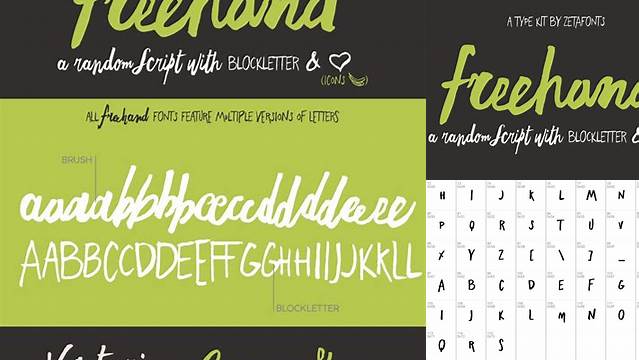
Freehand Blockletter Bold Font: Download & Design Guide
Welcome, design enthusiasts! Today, we're diving headfirst into the world of typography with the Freehand Blockletter Bold font. This is the ultimate guide to everything you need to know about downloading and using this awesome font. We'll explore its features, where to find it, and how to unleash its creative potential in your projects. Let's get started!
Freehand Blockletter Bold Font: A Detailed Overview
Let's delve a bit deeper into the Freehand Blockletter Bold font itself. This isn't just any font; it's a statement. Its bold, blocky appearance makes it perfect for headlines, titles, and any design element that needs to grab attention. The hand-drawn feel adds a touch of personality and warmth that can be hard to find in other, more rigid fonts. This font style is a great choice for projects where you want to convey a sense of creativity and approachability. It works well in various design contexts, from posters and flyers to website headers and social media graphics. The bold weight ensures high readability, even at smaller sizes, making it a practical choice for various applications. The font's versatility is another key feature. It can be paired with a wide range of other fonts, allowing you to create interesting and dynamic visual compositions. You can combine Freehand Blockletter Bold with a clean, sans-serif font for body text to create a striking contrast, or you can pair it with a more elaborate script font for a touch of elegance. The possibilities are endless. The hand-drawn style of the font also lends itself well to a variety of creative effects. You can experiment with different colors, textures, and outlines to enhance its visual impact. Consider using drop shadows, glows, or gradients to add depth and dimension to your text. These effects can make your designs even more eye-catching and engaging. Before you start using Freehand Blockletter Bold, it's a good idea to familiarize yourself with its character set. While it might not include every character imaginable, it should have all the essential letters, numbers, and punctuation marks you'll need for most projects. Check the font's glyphs to see if it includes any special characters or alternate letterforms that might enhance your designs. Understanding these details will help you get the most out of the font. The boldness of Freehand Blockletter Bold also means it can be used effectively in various sizes. Whether it's a huge headline on a banner or a smaller title on a business card, it will retain its impact. Play around with different sizes to see what works best for your specific needs. Always remember that the best design is one that effectively communicates its message. With its strong visual presence, Freehand Blockletter Bold helps you achieve this by instantly capturing your audience's attention.
Using Freehand Blockletter Bold: Design Ideas and Best Practices
Now that you've got the Freehand Blockletter Bold font, let's talk about how to use it like a pro. This font is a real powerhouse, and it can add a unique flair to a variety of design projects. One of the best uses for this font is in headlines and titles. Its boldness and distinctive style instantly grab the reader's attention. Think about using it for posters, flyers, website headers, and social media graphics. It is also fantastic for logos, especially for businesses that want to project a fun, creative, or handmade image. The font's character adds personality and memorability. This is also great for creating eye-catching quotes or short bursts of text within your designs. Use it to emphasize a key message or add a visual highlight. Be mindful of using it for large blocks of text, as the bold style may make it less readable in long-form content. In general, keep the font usage strategic and focused on impact. You can combine Freehand Blockletter Bold with other fonts to create dynamic typographic compositions. Try pairing it with a clean, sans-serif font for body text to create a visual contrast. Or combine it with a more flowing script font for an elegant look. Think about how the different font styles complement each other and contribute to the overall design. You can also experiment with the colors and styles of the font. Consider using bold colors to make your text stand out, or apply gradients, drop shadows, or outlines to create visual effects. Adding textures can also enhance the style of the font, making it even more appealing. When using the font, think about the context of your design. Is it a fun, playful design or a more serious one? The personality of the font can match the tone of your overall project. Consider the target audience and what style of text will appeal to them. Always ensure that the font is readable. While Freehand Blockletter Bold is visually striking, readability is key. Make sure the font size is appropriate for the context, and leave enough space between the letters and lines to maintain legibility. Keep in mind the overall balance of your design. Don't let the font overpower other design elements. The font should complement the visual elements and contribute to the overall message. With a little creativity and careful planning, the font can become a powerful tool in your design toolkit.
Freehand Blockletter Bold in Graphic Design: Creative Applications
Let's get creative with how you can apply Freehand Blockletter Bold in various graphic design projects. This font is like a versatile artist's tool, perfect for a variety of creative applications. First, think about branding. The font is an excellent choice for creating logos that need to stand out. Its bold and unique style makes it memorable. When designing a logo with this font, you can also experiment with its visual impact. Consider different color combinations, layouts, and placements to see what best represents the brand's identity. This font is a fantastic choice for poster design. Its bold presence makes headlines pop, making them highly visible. Use it to create posters for events, promotions, or announcements. You can experiment with different sizes and styles to create an attractive look. This font also shines in social media graphics. It's perfect for creating engaging and eye-catching content on platforms like Instagram, Facebook, and Twitter. Use the font to create quotes, announcements, and promotional materials that will capture the audience's attention. This is also great for creating website headers and banners. Its bold style ensures that the website's name or main message is immediately noticeable. Make sure to consider the overall aesthetic of the website when using this font. The font can enhance the appearance of various printed materials, such as brochures, flyers, and business cards. Its unique style adds a creative element that makes your design stand out. The font is also excellent for creating custom illustrations and artwork. Use the font to create typography-based art or integrate it with hand-drawn elements for a unique effect. With a little creativity, you can use the font in various other design projects. Think about album covers, book covers, and even product packaging. Its versatility makes it an excellent choice for a range of applications. It can also be creatively combined with other design elements to enhance visual appeal. Remember to always consider the context of your design and use the font in a way that complements the overall message. Freehand Blockletter Bold offers a world of possibilities; your imagination is the only limit.
Freehand Blockletter Bold Font: Customization and Styling Techniques
Let's dive into some awesome techniques to customize and style your Freehand Blockletter Bold font, making it uniquely yours. This font is not just about the basic characters; you can modify and adjust it to create truly unique and appealing designs. First, you can experiment with color. While black and white are classic choices, try using bold, bright colors to make your text stand out. Consider using gradients, blending two or more colors to add depth and visual interest. This can be done by playing with the fill color of the text in your design software, like Adobe Photoshop or Canva. You can also add textures to your text. Textures can be achieved by using textures such as wood, stone, or metal to enhance the style of the font. These can create a unique look and feel, making your design stand out. Outlines and strokes are another great way to customize the font. Adding a stroke (outline) to your text can help it stand out, especially against a busy background. You can also change the color of the stroke to create contrast and visual interest. Adding drop shadows can also add depth and dimension to your text. This can be achieved by adding a shadow behind the text, giving it a 3D effect. Make sure the direction and intensity of the shadow match your design's overall aesthetic. Experimenting with the font size and spacing is also a good idea. Adjusting the size of the text can change its impact. Spacing between letters can also have a significant effect on the overall appearance. You can make the text more condensed or more spread out, depending on your design needs. The font can also be combined with other design elements. You can integrate the font with other shapes, illustrations, and images to create complex and unique designs. Be creative, and experiment with different combinations. You can use these various techniques to ensure the font perfectly matches your overall design vision. Have fun and let your creativity run wild.
Freehand Blockletter Bold Font: Alternatives and Similar Fonts
Sometimes, you might be looking for something similar to Freehand Blockletter Bold, or perhaps you want to explore other options. Let's explore some alternative fonts that share a similar style and character. One great alternative is the Blockletter font. This font also has a bold, blocky appearance, making it a strong choice for headlines and titles. The character of the font is similar, but you might find it has a slightly different feel or style. Another interesting option is the Bebas Neue font. Although this is a sans-serif font, its bold weight and clean lines create a similar visual impact, making it ideal for web designs and branding projects. The Anton font is another excellent alternative. This font has a similar blocky style and a strong visual presence. It works well in headlines, posters, and other design projects that require high impact. If you are looking for a more hand-drawn style, you can consider the ChunkFive font. This font is similar to Freehand Blockletter Bold, but its slightly uneven lines and imperfections add a touch of authenticity. The Impact font is also a great option, with its bold and condensed style, which makes it a strong choice for headlines and titles. This is not a substitute for Freehand Blockletter Bold, but its similarity can be useful in your designs. When looking for alternatives, keep in mind the context of your design project. Consider the message you want to convey and the overall aesthetic you're trying to achieve. The best alternative will depend on your specific needs and preferences. Think about whether you want a font that's equally bold and impactful or if you prefer something with a slightly different feel or personality. By exploring these different options, you can find the perfect font to complement your design and achieve the desired visual impact.
Freehand Blockletter Bold vs. Other Block Fonts: A Comparative Analysis
When you're in the market for a block font, the options can seem endless. Let's break down how Freehand Blockletter Bold stacks up against some of its blocky brethren. This comparison will help you decide when this particular font is the perfect fit and when you might want to consider something different. One of the key differentiators is the hand-drawn quality of Freehand Blockletter Bold. While many block fonts are perfectly geometric and precise, this one has a slightly imperfect, hand-crafted feel. This gives it a unique personality and adds a touch of warmth that some other block fonts lack. In contrast, fonts like Impact are known for their bold, condensed style, making them highly impactful. However, they lack the specific charm of Freehand Blockletter Bold. The choice between them often depends on the overall mood you want to create. If you are after a fun and approachable look, Freehand Blockletter Bold is a great option. If you want a stark, more assertive look, then Impact is a winner. Compared to more generic block fonts, Freehand Blockletter Bold often stands out due to its unique character set and design. Some block fonts have a simple design that might not be ideal for a project that needs a bit of personality. Freehand Blockletter Bold offers a specific aesthetic that helps your design stand out. Another thing to consider is the context of your design. For a project that needs to look friendly, a more handmade font like Freehand Blockletter Bold will work better. For a more corporate or professional project, a more formal block font may be better. The differences in character sets, kerning, and overall design will also influence your choice. Some fonts might have more specific features than others. Always download and test the font to see if it suits your project. Ultimately, the best block font is the one that aligns with your project's specific requirements and creative goals. By comparing Freehand Blockletter Bold with other block fonts, you can make a well-informed decision that enhances the visual impact of your design.
Assessing the Legibility of Freehand Blockletter Bold: Readability in Design
Let's dive into the legibility aspect of Freehand Blockletter Bold. While this font is visually striking, understanding its readability is crucial for effective design. After all, the primary goal of typography is clear and effective communication. The first thing to consider is the size of the font. Because it's a bold font, it is easily readable at larger sizes. However, like all bold fonts, readability can decrease at smaller sizes. So it's wise to test how well it performs when you use it in different sizes, especially in body text. The spacing between letters and words plays a critical role in readability. With Freehand Blockletter Bold, ensure there is ample space between each character. This will help the text flow and prevent the letters from blending together. Similarly, good spacing between words and lines will improve the overall readability. The color contrast between the font and the background is also important. High contrast is key. Use a light-colored font on a dark background or a dark-colored font on a light background. This will make it easier for the eyes to recognize the text. Also, consider the font's use in different contexts. While the bold style is perfect for headlines and titles, it might not be the best choice for long passages of body text. In such cases, its boldness can make the text seem too heavy, making it difficult to read for extended periods. The choice between the font and different font styles is crucial. You can also consider its use in various design projects. This font is not suitable for every project. Test the font on your specific design project. Print the font to see if it meets your needs. Always assess readability to make sure that your message is understood. Proper use of the font can help you create an attractive design.
Freehand Blockletter Bold Font: License Types and Usage Rights
Understanding the license types and usage rights associated with Freehand Blockletter Bold is essential to ensure you're using it legally and ethically. This prevents any legal issues and allows you to respect the creator's work. Most fonts, including Freehand Blockletter Bold, come with a license agreement. This agreement outlines the terms and conditions of the font's use. Before you use the font, always read the license agreement. This will tell you whether the font is free for personal use, commercial use, or both. Many fonts are free for personal use, meaning you can use them for non-commercial projects like personal websites, artwork, and documents. However, you typically need to purchase a commercial license if you intend to use the font for any commercial purpose, such as logos, business cards, marketing materials, or products for sale. Commercial licenses vary in price depending on the font creator and the scope of the usage. Be sure you're purchasing the correct license. Be sure to keep records of your font licenses and file them appropriately. Keep it safe in case you need it later. Some fonts may also have specific restrictions. For example, some fonts may not be used in certain industries or for specific purposes. Others may require attribution to the font designer. Always check the license agreement for any specific restrictions. If you're unsure about the license terms, the best course of action is to contact the font creator directly. This will clarify any doubts. By understanding the license types and usage rights, you can ensure you use the font appropriately and avoid any potential legal issues. Knowing the license will make sure that you can use it in your projects.
Troubleshooting Freehand Blockletter Bold Font Issues
Even with the best fonts, you might encounter some issues. Let's troubleshoot some common problems you might face with Freehand Blockletter Bold and learn how to fix them. One common issue is the font not appearing in your design software after installation. First, ensure that you have correctly installed the font on your operating system (Windows or Mac). After installation, restart your design software. This ensures that the software recognizes the newly installed font. If you still can't find the font, check the font menu to see if it's listed. If the font is still not visible, check your software's font settings. There might be a setting to enable or refresh the fonts. Another potential problem is that the font might appear corrupted or display incorrectly. This can happen if the font file is damaged or if there's a conflict with another font on your system. Try downloading the font again from a different source. Ensure that you're downloading the correct font file. You can also try repairing or reinstalling the font. If you are still having problems, check the font's file integrity. You can use font management software to do this. Font management software will also help you identify and resolve font conflicts. You may also have issues with the font's appearance in specific design software or operating systems. Make sure that the software supports the font format (TTF or OTF). Try using different versions of the font file. Check the software's compatibility with the operating system. If you encounter any other display issues, check for any specific software-related issues or glitches. Look for updates for your design software or operating system. If you're still facing problems, consult the font's creator or a design professional. With a bit of patience and these troubleshooting tips, you should be able to resolve any font-related issues and continue using Freehand Blockletter Bold in your designs.
Resolving Common Installation Problems with Freehand Blockletter Bold
Let's dive into some specific ways to resolve common installation problems with the Freehand Blockletter Bold font. After all, even the best fonts can be tricky to get up and running sometimes. The first thing to check is whether the font has been installed correctly on your operating system. On Windows, ensure you've right-clicked on the font file and selected "Install." On macOS, you'll generally double-click the font file, and the Font Book app will guide you through the installation. Once you think the font is installed, restart the design software. This ensures the software recognizes the new font. If you still don't see the font, check the font menu within your design software. Sometimes, there may be a category for recently added fonts or a search bar to help locate it. Make sure you're looking in the right place. Another common issue is font caching. Both Windows and macOS cache font information to speed up performance. Sometimes, this caching can prevent a newly installed font from appearing. To clear the font cache, you may need to restart your system. You can also try using font management software to clear the cache. Check that your design software supports the font format. Freehand Blockletter Bold typically comes in .TTF or .OTF format. Ensure your software recognizes and supports these formats. Also, consider the possibility of font conflicts. Other fonts on your system might have similar names or conflicting versions. If so, you can use font management software to resolve these conflicts. Always ensure that you have the proper administrator privileges on your computer. Sometimes, font installation requires administrator rights, especially on corporate systems. By following these steps, you can easily troubleshoot installation problems and get Freehand Blockletter Bold up and running.
Why Freehand Blockletter Bold May Not Appear in Your Design Software
It's frustrating when the Freehand Blockletter Bold font doesn't appear in your design software. Let's explore the potential causes and find some solutions. A common culprit is incorrect installation. Ensure you've correctly installed the font on your operating system. On Windows, right-click the font file and select "Install." On macOS, double-click the font file. Make sure the font is installed in the correct location. Another common reason is font caching. Your operating system and design software may store font information to improve performance. The cache might prevent the newly installed font from appearing. Try restarting both your operating system and the design software. Software versions can sometimes cause issues. Older versions of your design software might not fully support the font. The font format is also an issue. If the font is not compatible with the software, it may not appear. The font file might be corrupted. Try downloading the font from a different source or reinstalling it. Font conflicts can occur if you have multiple versions of the same font or fonts with similar names. These conflicts can prevent the font from appearing. Use font management software to detect and resolve conflicts. If the font is still not showing up, it might be because of specific software settings. Check the font settings in your design software to ensure that the font is enabled and not hidden. Follow these suggestions to troubleshoot the issues.
Fixing Font Rendering Issues in Freehand Blockletter Bold
Even when Freehand Blockletter Bold is installed, you might encounter font rendering issues, like blurry or jagged text. Let's examine these problems and how to fix them. One common problem is screen resolution. If your screen resolution is low, the font might appear blurry. Increase the screen resolution to see if this improves the display of the font. If the font still looks blurry, check your design software's rendering settings. Make sure that the software is set to render the font at a high quality. Check the font size, because the font may appear blurry at smaller sizes. Experiment with different sizes to see if this improves the appearance of the font. The font is also rendered differently on different operating systems. Ensure you are using the correct font format (.TTF or .OTF). You can try different versions of the font file to see if they render better. You can also experiment with different rendering options within your operating system, such as font smoothing. If the font is still not rendering correctly, there might be a problem with the font file itself. Try downloading the font from a different source. You can also try reinstalling the font or using font management software to check for any errors. By following these tips, you can troubleshoot font rendering issues and make sure Freehand Blockletter Bold looks great in your designs.
Freehand Blockletter Bold in Web Design: Implementation and Best Practices
Let's move on to integrating Freehand Blockletter Bold into web design. Its strong style can add a lot of personality to your websites, but it's important to use it wisely. First, you'll need to make the font available for your website. This typically involves embedding the font files in your website's code. One of the easiest ways to do this is by using a service like Google Fonts. Google Fonts offers a wide selection of free fonts, including the Freehand Blockletter Bold. To use Google Fonts, you'll need to add a simple line of code to your website's HTML. You can also use other font embedding services, such as Adobe Fonts. Always ensure that you're using the font legally and ethically. Once the font is embedded, you can apply it to your website's text elements using CSS. Make sure the font is not too small. Because Freehand Blockletter Bold is a bold font, it can be more challenging to read at smaller sizes. When using the font, consider the context of your design. Use it strategically for headlines, titles, and calls to action. Be careful not to use it for large blocks of body text, as its boldness can make it difficult to read. This is often used in headlines and titles. Consider how the font complements the overall design of your website. Make sure it matches the brand's identity and the website's style. By using these methods, you can successfully implement Freehand Blockletter Bold in your website design. Also, test the font on different devices and screen sizes to ensure it renders correctly and remains readable. With careful use, Freehand Blockletter Bold can make your website more engaging and visually appealing.
Using Freehand Blockletter Bold in CSS: Web Font Integration
Let's look at how to implement Freehand Blockletter Bold in your website using CSS, the key language for styling your web content. First, you will want to download the font file in the correct format. You can use services like Google Fonts, or you can download the font file and host it on your own server. In your CSS file, you'll need to use the @font-face
rule to define the font. This rule tells the browser where to find the font file and how to name it. You can then link to the font file. With the font defined, you can now apply it to your website's text elements. In your CSS, use the font-family
property to specify the font. For example, font-family: 'Freehand Blockletter Bold';
. You can apply this property to various HTML elements. Be mindful of the font size. Because it's a bold font, it can be less readable at smaller sizes. Always test how well the font works at different sizes, and consider using a different font for smaller text. Another key property is the font-weight
property. Use the font-weight: bold;
to make your text appear bold. You can also modify the font's color using the color
property, which is important for improving the readability of the font. You can also use the text-shadow
property to add a shadow to your text, which can help it stand out against a background. When integrating Freehand Blockletter Bold into your website, it's a great idea to always consider your website's design and branding. Be sure that it's in line with the overall style. After implementation, test your website on different devices and browsers to make sure it's rendering correctly and the font is easy to read. By using these CSS techniques, you can properly implement the font in your website, increasing its visual appeal.
Optimizing Freehand Blockletter Bold for Web Performance
When integrating Freehand Blockletter Bold into your website, it's crucial to consider its impact on web performance. Slow loading times can frustrate users and negatively affect your website's search engine rankings. One key step is to choose the right font format. The best practice is to use WOFF and WOFF2 formats. They offer excellent compression and are widely supported by modern browsers. If you're hosting the font files yourself, make sure you're using a Content Delivery Network (CDN). A CDN distributes your website's content across multiple servers, reducing the load time for visitors worldwide. Another critical element is to compress the font files. The smaller the file size, the faster the website loads. You can use tools to compress the font files without sacrificing quality. Limit the use of the font. Using this bold font for every text element can lead to performance issues. Use it strategically for headlines, titles, and calls to action, while using a more lightweight font for body text. Optimize your CSS. Only include the CSS code that's necessary to style the font. Remove any unnecessary code or styles. Minimize the HTTP requests your website makes. Ensure that you're using a font loading strategy. Loading the font asynchronously allows the rest of your website to load without being blocked by the font. Regularly test your website's loading speed using online tools. These tools can help you identify any performance bottlenecks and make adjustments. Implement these measures to optimize Freehand Blockletter Bold for web performance, so your website is faster and more user-friendly.
Responsive Design with Freehand Blockletter Bold: Adaptability for Different Screens
To create a user-friendly website, you need to create a responsive design, especially when using Freehand Blockletter Bold. Responsive design makes your website look great on all devices and screen sizes. One of the most important techniques is using relative units for font sizes. Instead of using fixed pixel values, use percentages, ems, or rems. This allows the text to scale proportionally with the screen size. Use CSS media queries. This is critical for creating responsive designs. With media queries, you can change the font size, layout, and other styles based on the screen size. Experiment with different font sizes. While this is an effective font for headlines, it can be more challenging to read on smaller screens. Use a smaller font size on smaller screens and larger font sizes on larger screens. Make sure that the design is not too wide or narrow. Your website should look great on both large desktop screens and small mobile devices. Also, test your website on various devices and browsers. Use different phones, tablets, and computers to ensure your website is rendering correctly. You can use a variety of online tools to see how your website looks on different devices. Make sure that the text is still easy to read. This font works well for headlines and titles, but consider using a more readable font for long sections of body text. By implementing these responsive design techniques, you can make sure that Freehand Blockletter Bold looks fantastic on all devices and screen sizes. You'll create a website that is user-friendly, accessible, and visually appealing, regardless of the user's device.
Conclusion: Unleashing the Power of Freehand Blockletter Bold
So there you have it! We've journeyed through the world of the Freehand Blockletter Bold font. You are now equipped with the knowledge to download, install, and use this awesome font in your creative projects. Remember, this font is more than just letters; it's a tool to express your creativity, add personality, and make your designs stand out. Embrace its boldness, experiment with different styles, and let your imagination run wild. Whether you're a graphic designer, web designer, or just someone who loves playing with fonts, the Freehand Blockletter Bold is a valuable asset in your design arsenal. Now, go forth and create some amazing designs! Let your creativity flow and have fun with it. Happy designing!